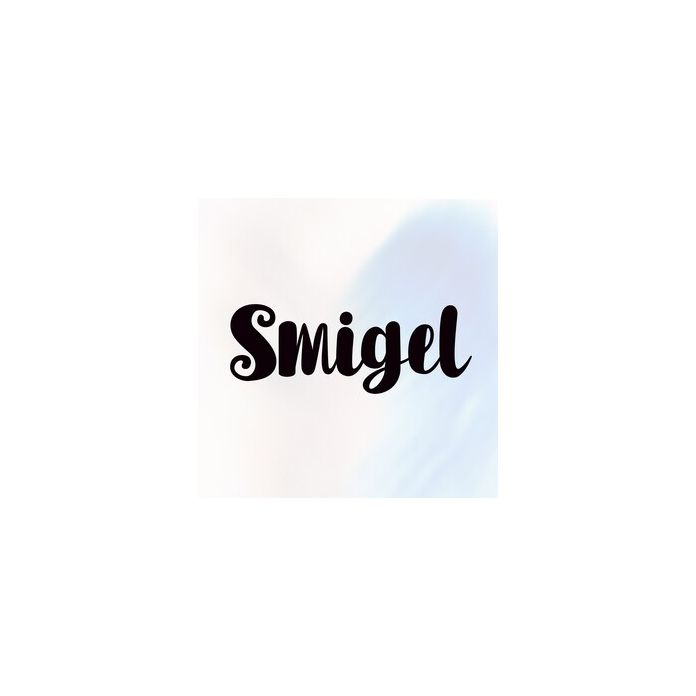
Smigel comes with a modern script theme, to welcome parties and New Year's excitement, of course this is very unique and different from the usual script, because this is my wife's original handwritten font. Now feel free to use it for New Year's projects, products, crafts, invitations and personalization. Includes alphabet, numbers, and punctuation.